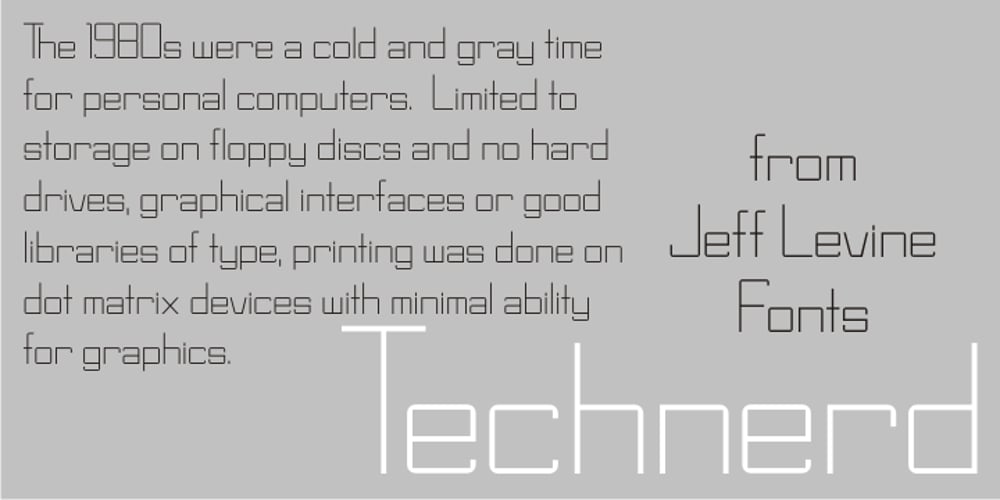
Technerd JNL
Technerd JNL font
Technerd JNL Font Family was designed by Jeff Levine and published by Jeff Levine. Technerd JNL contains 1 styles and family package options. The quest for an identity in the 1980s world of personal computers is the best way to describe Technerd JNL, a retro-style monoline font with clinically mechanical letter structure and a personality only a dot matrix could love. Picture if you will columned reports, interoffice memos and other paper ephemera of the day with this perfect form-and-function typeface, simply reeking of early 80s know-how!